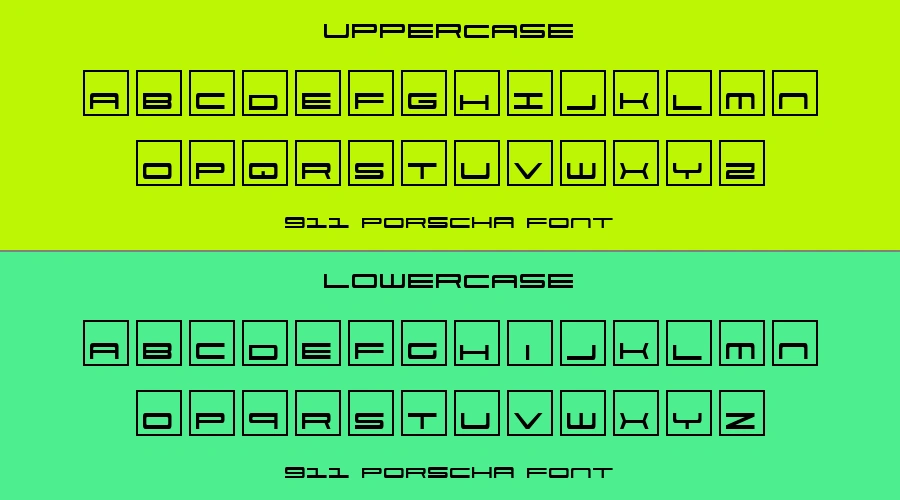
About 911 Porscha Font
Designed with precision, 911 Porscha Font merges decorative alternates with adaptability in every character. This versatility makes it particularly effective for logo design, where refinement and professional authority directly impact communication quality. Each letterform demonstrates meticulous craftsmanship.
Technical excellence shines through elements like contextual forms and text figures, enhancing typographic versatility. In social media assets settings, 911 Porscha Font proves its worth through superior color consistency. The thoughtful execution of cap height ratio and market position ensures professional results.